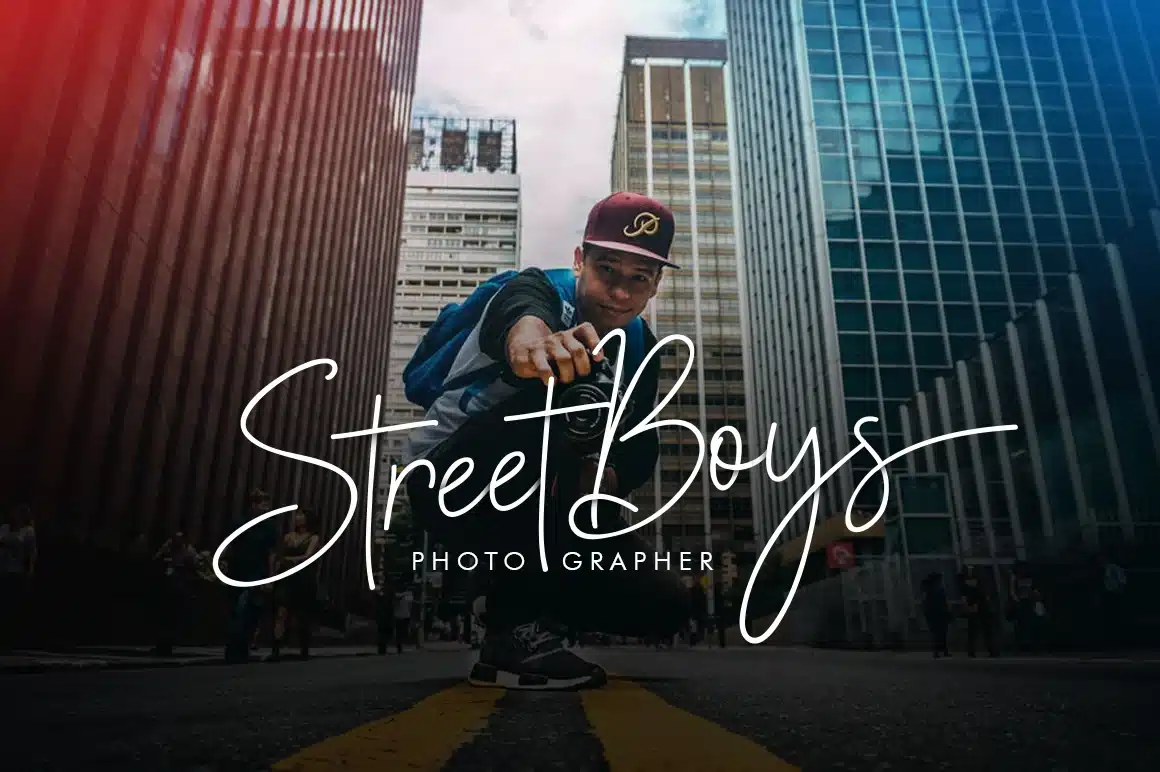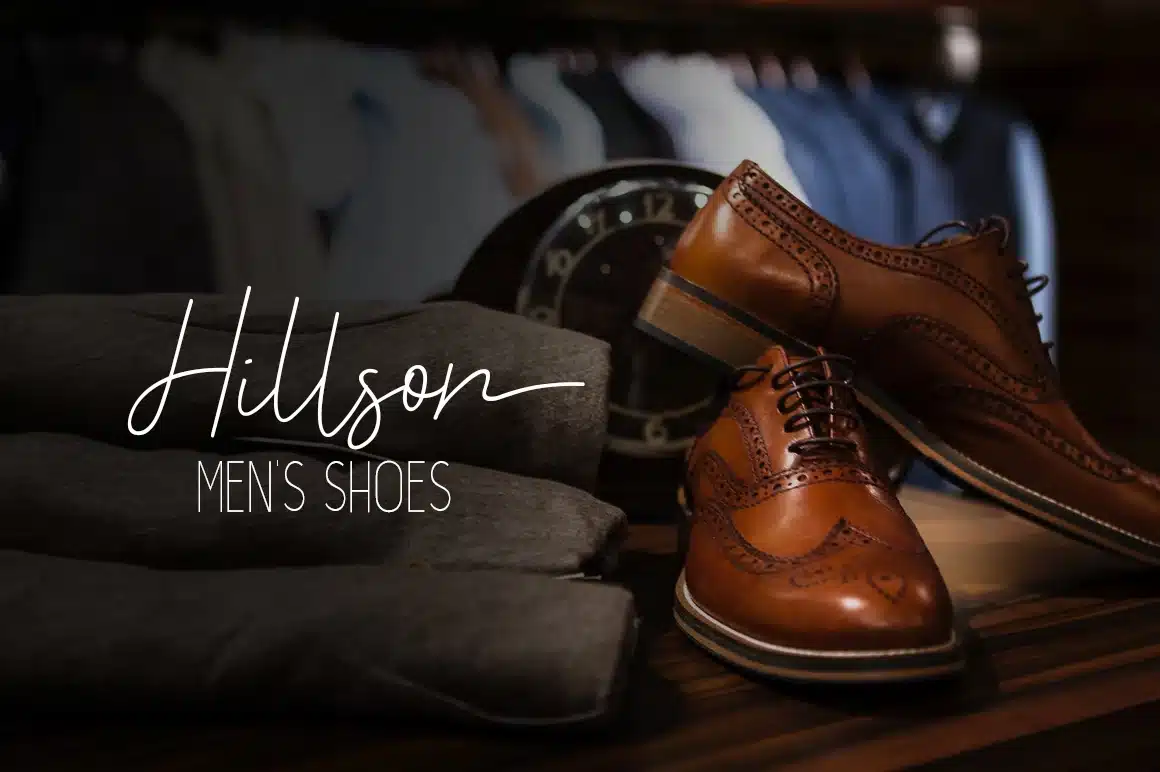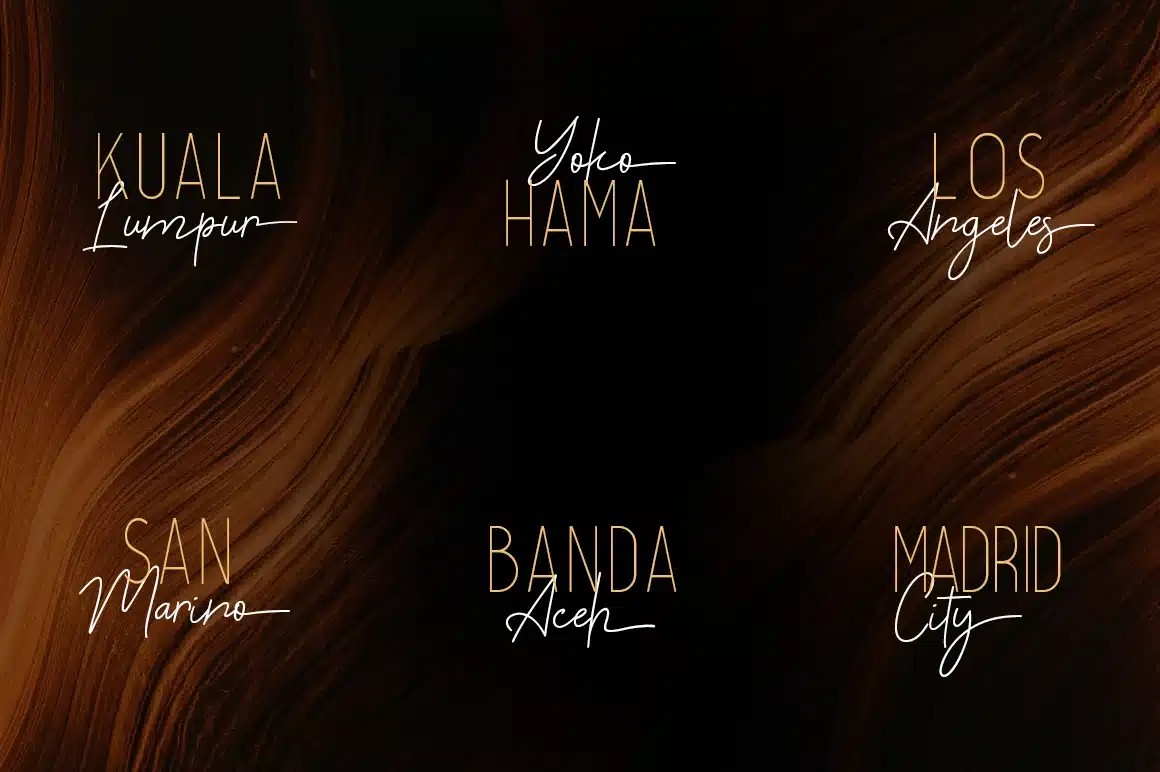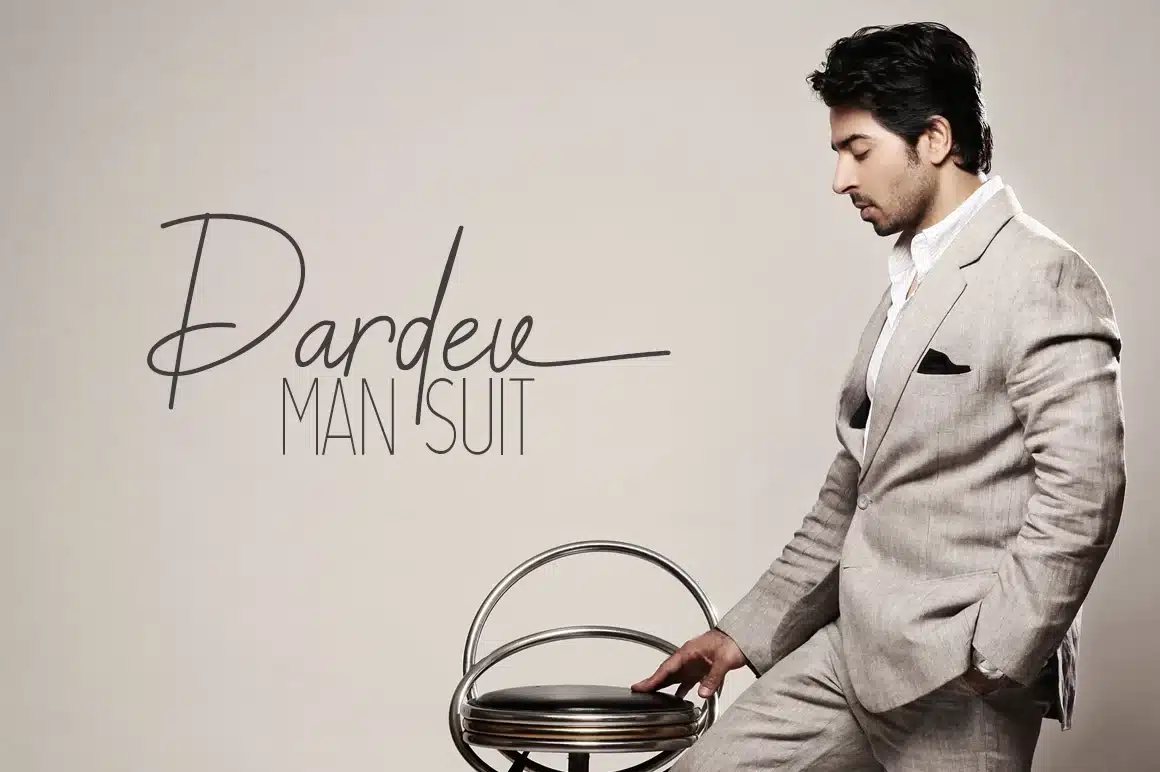
Sebastrian Font Duo
Introducing the Sebastrian Font Duo, a handwriting script and sans nice font type. Sebastrian font it’s perfect for namecard, poster, logo, magazine, cover, banner, tshirt and headers, or even large-scale artwork…
- OpenType Features
- Stylistic alternates
- Lowercase final form
- Multilingual support ÀÁÂÃÄÅÇEÈÉÊËIÌÍÎÏNÑØÒÓÔÕÖUÙÜÚÛWYÝŸ?ŸÆ